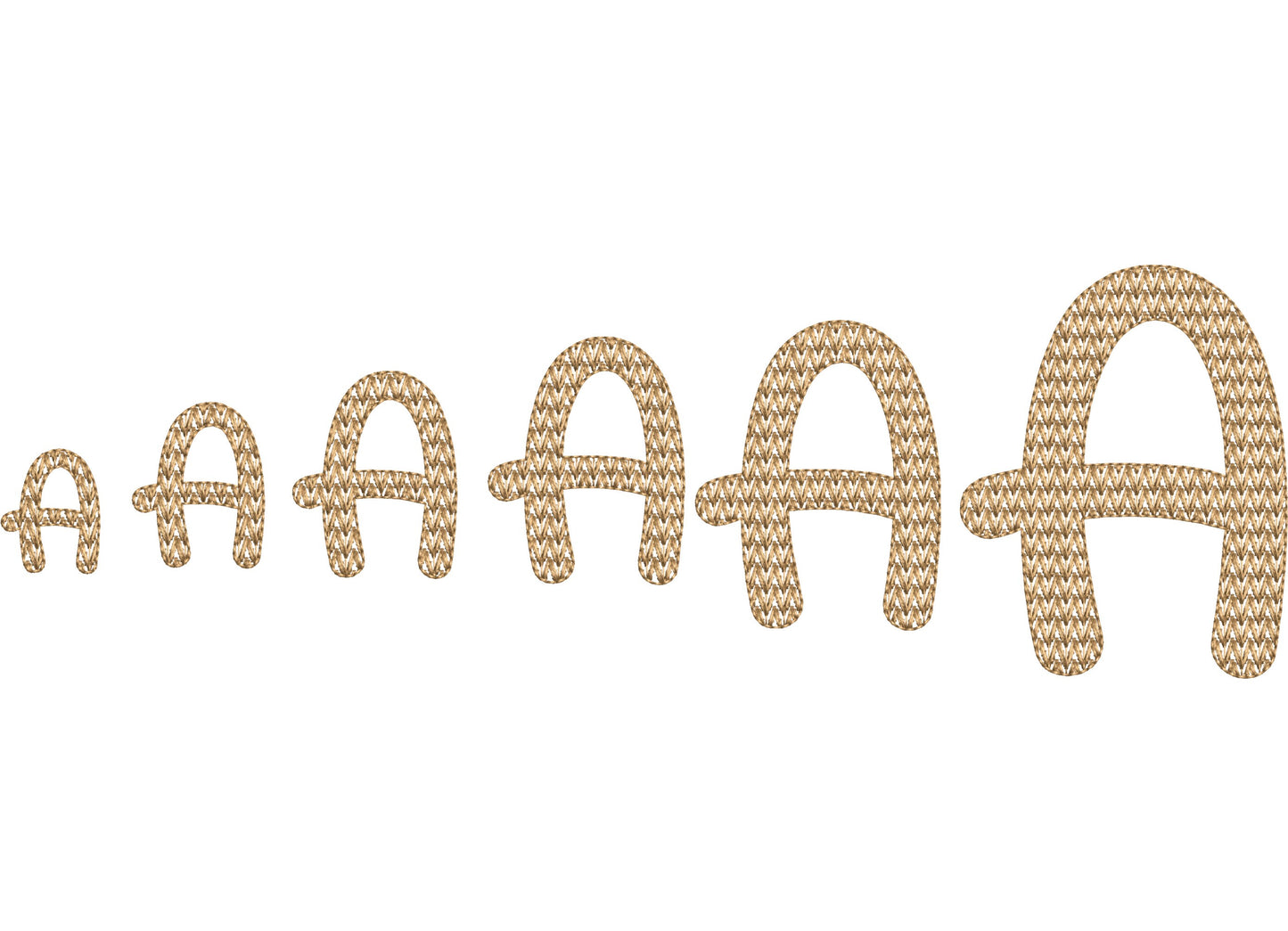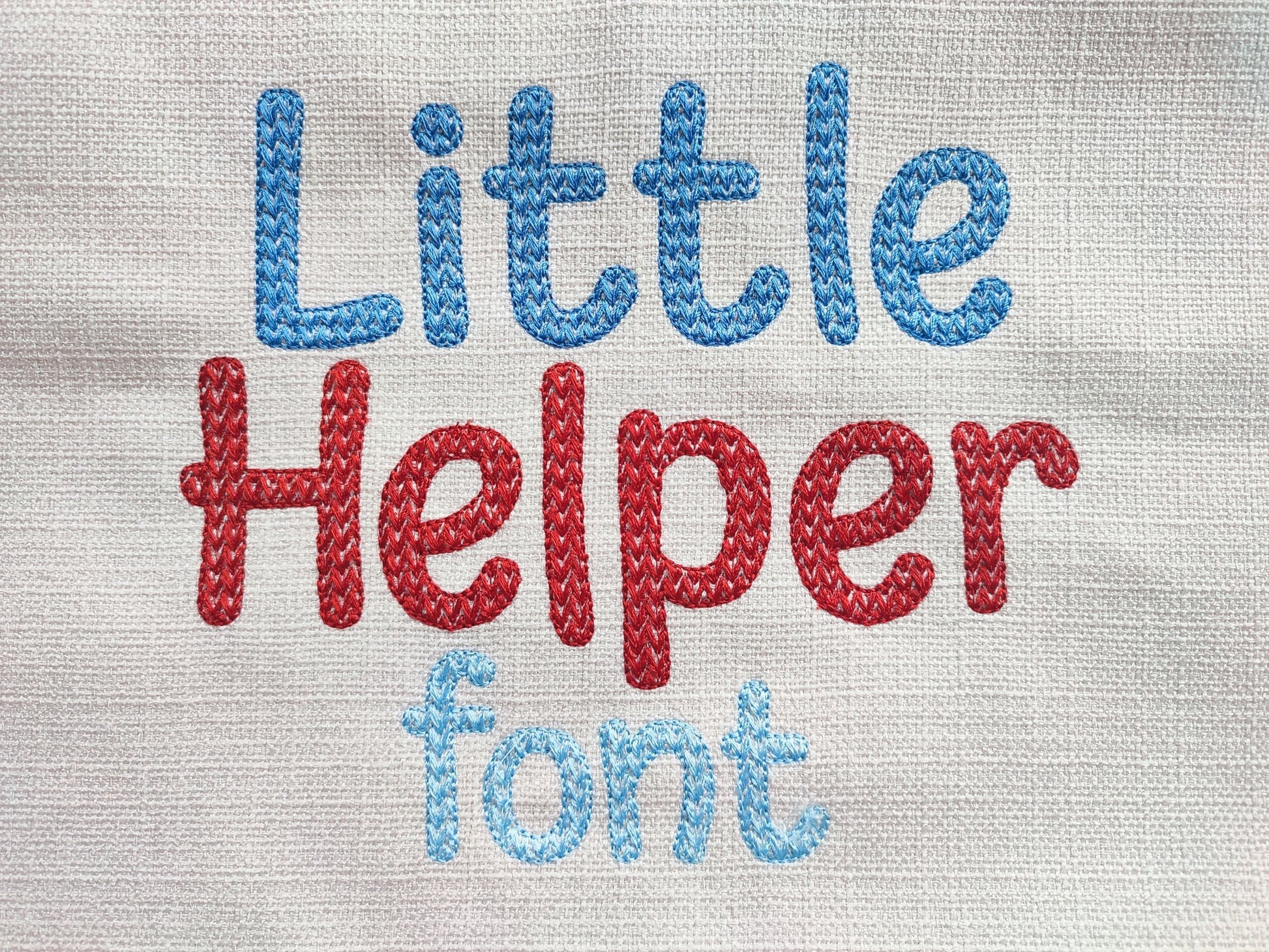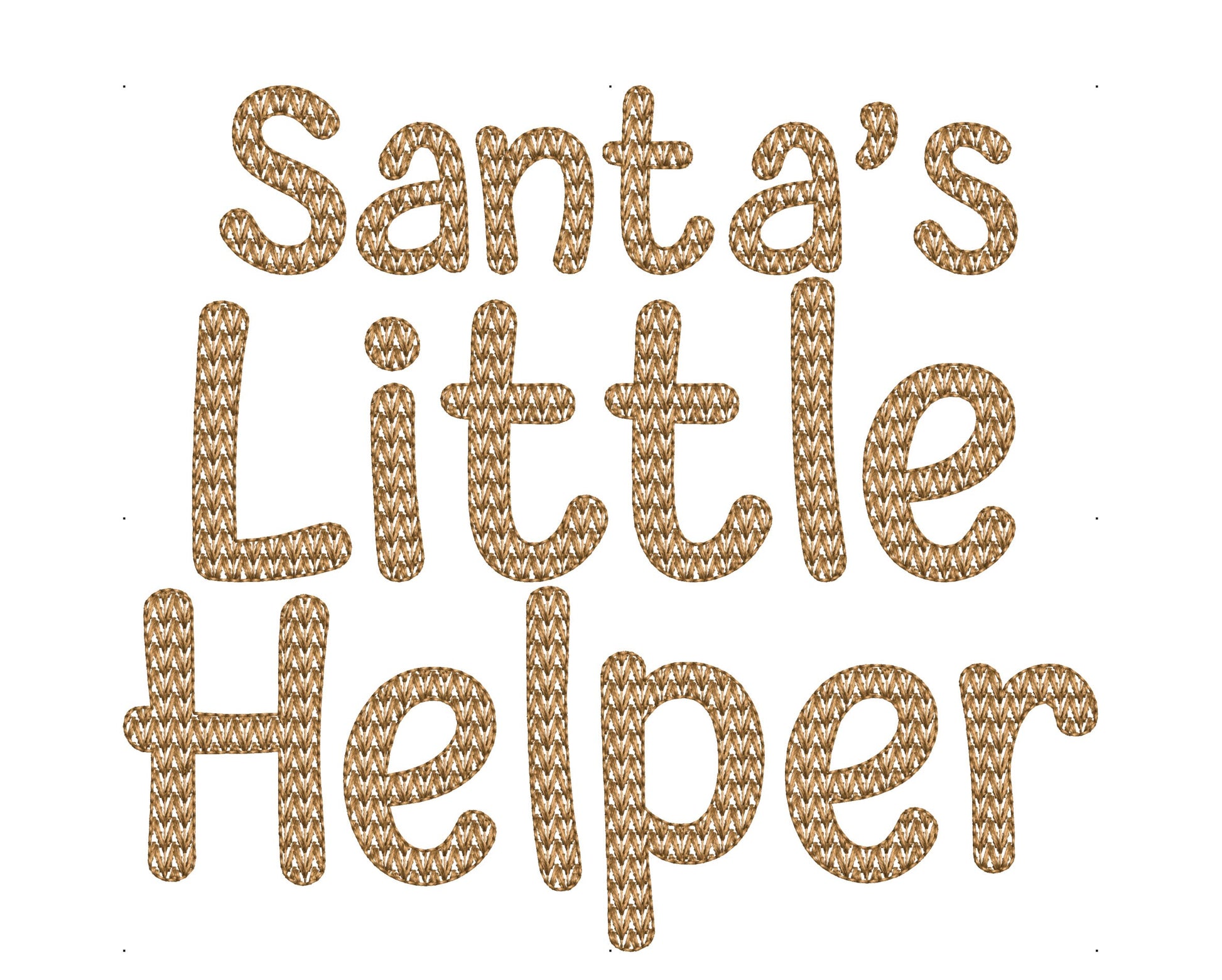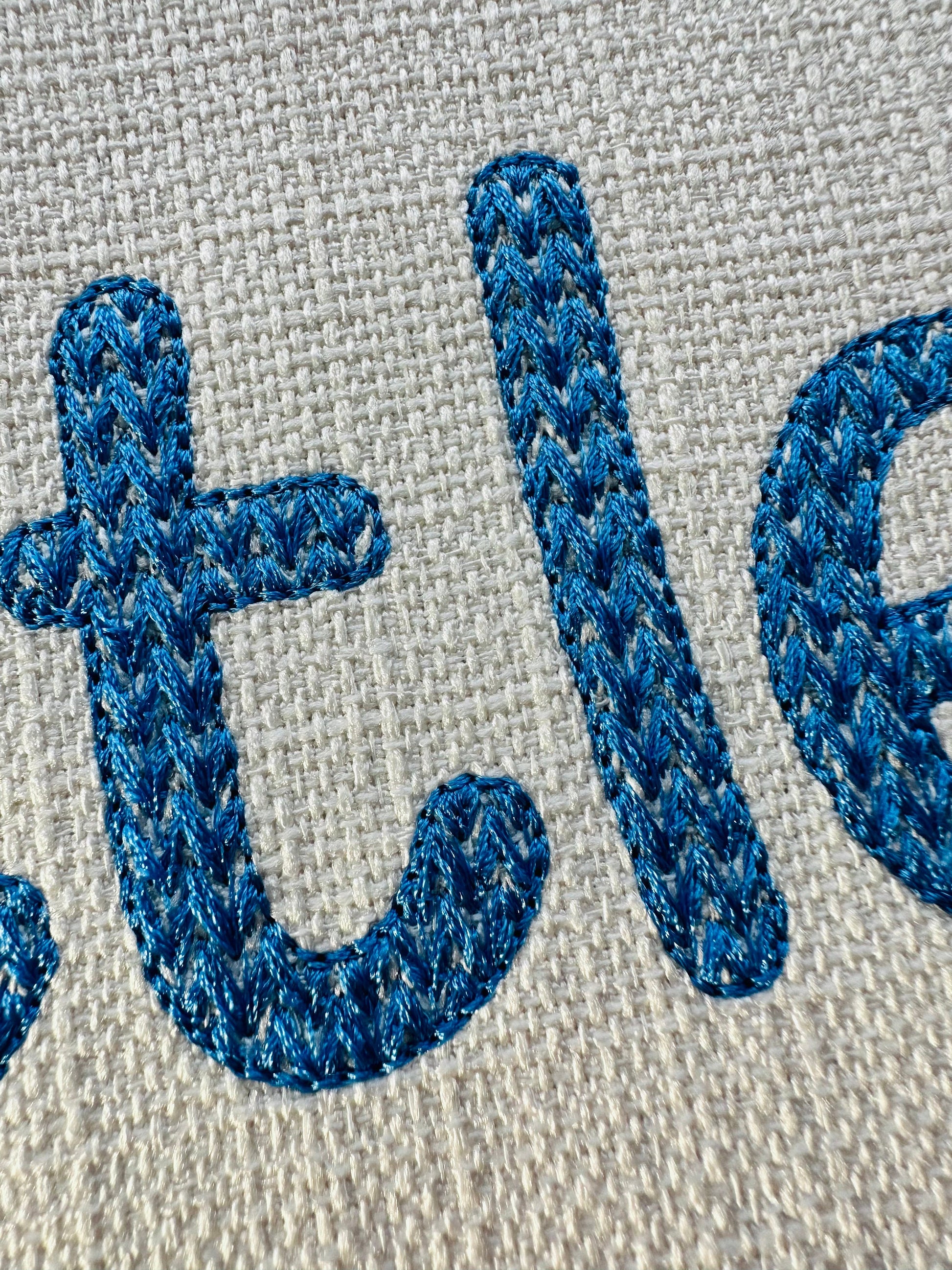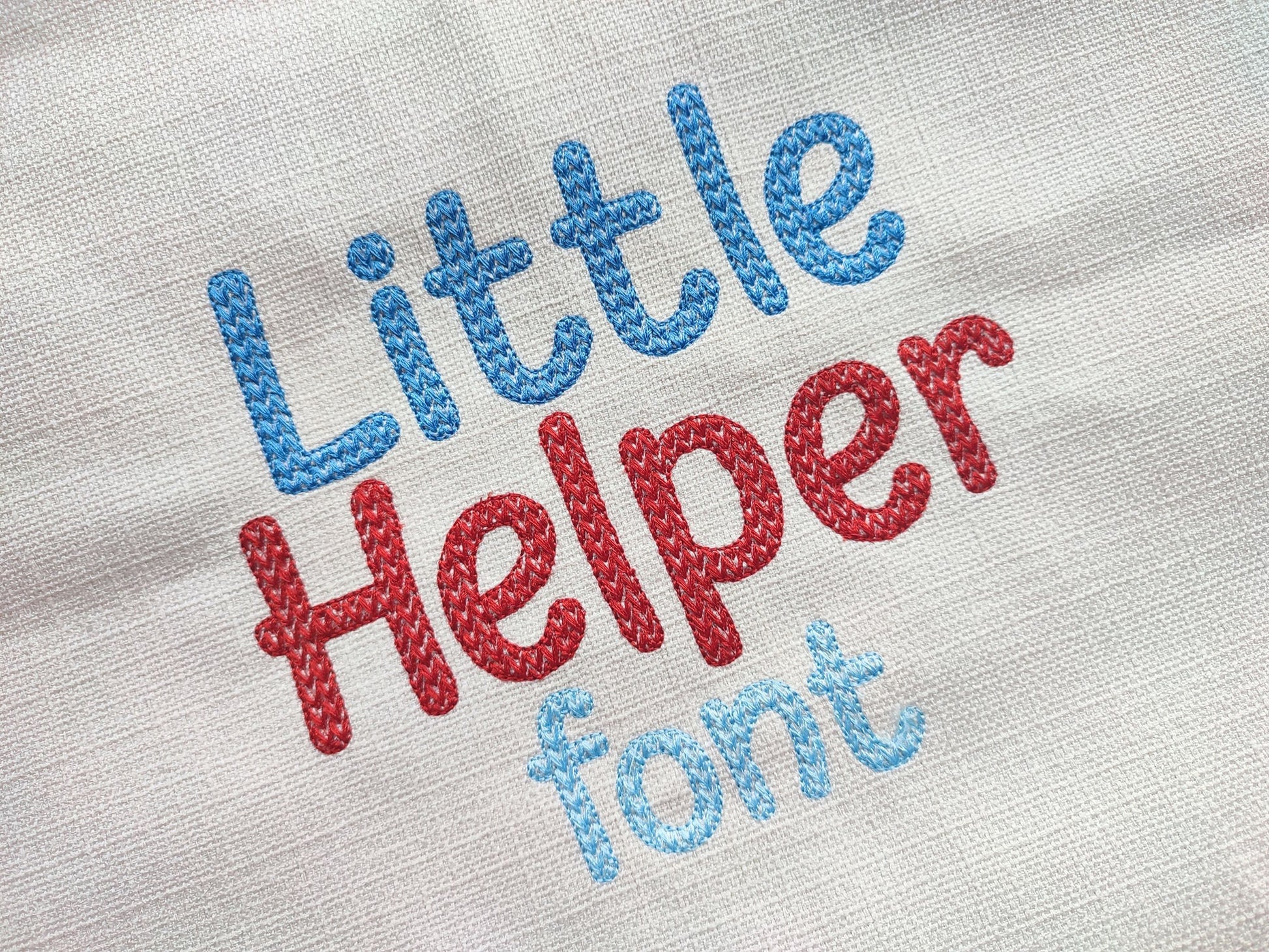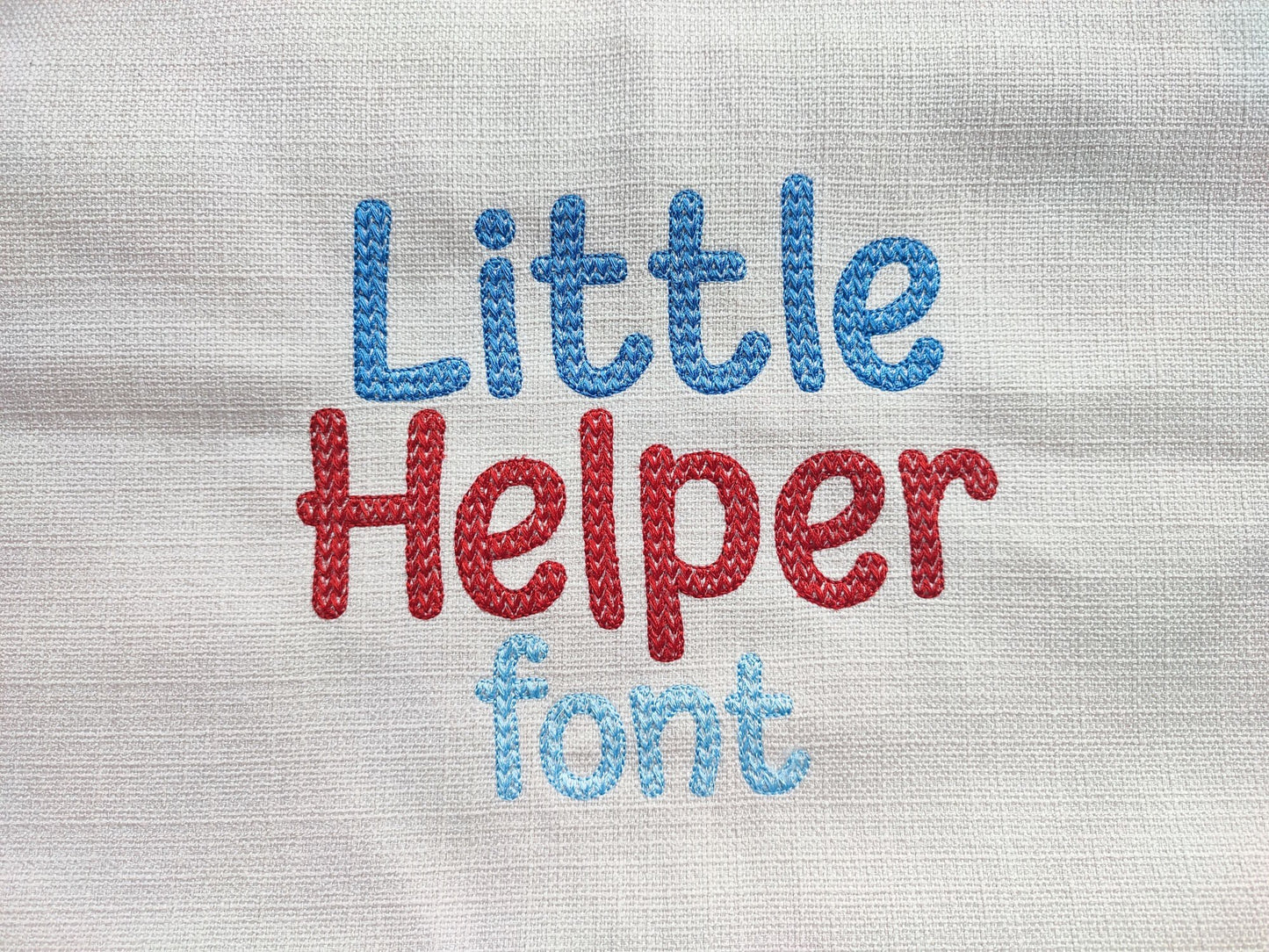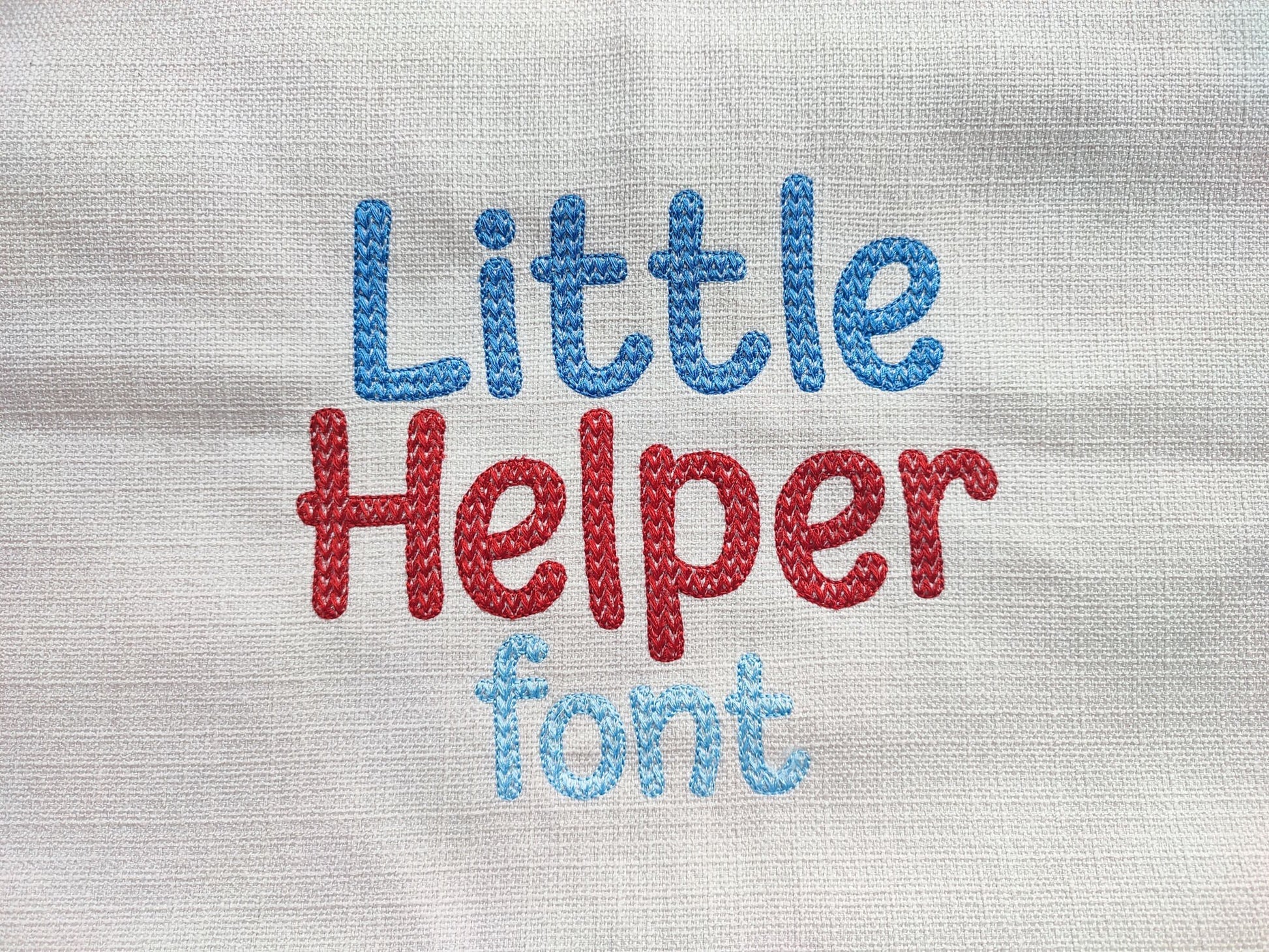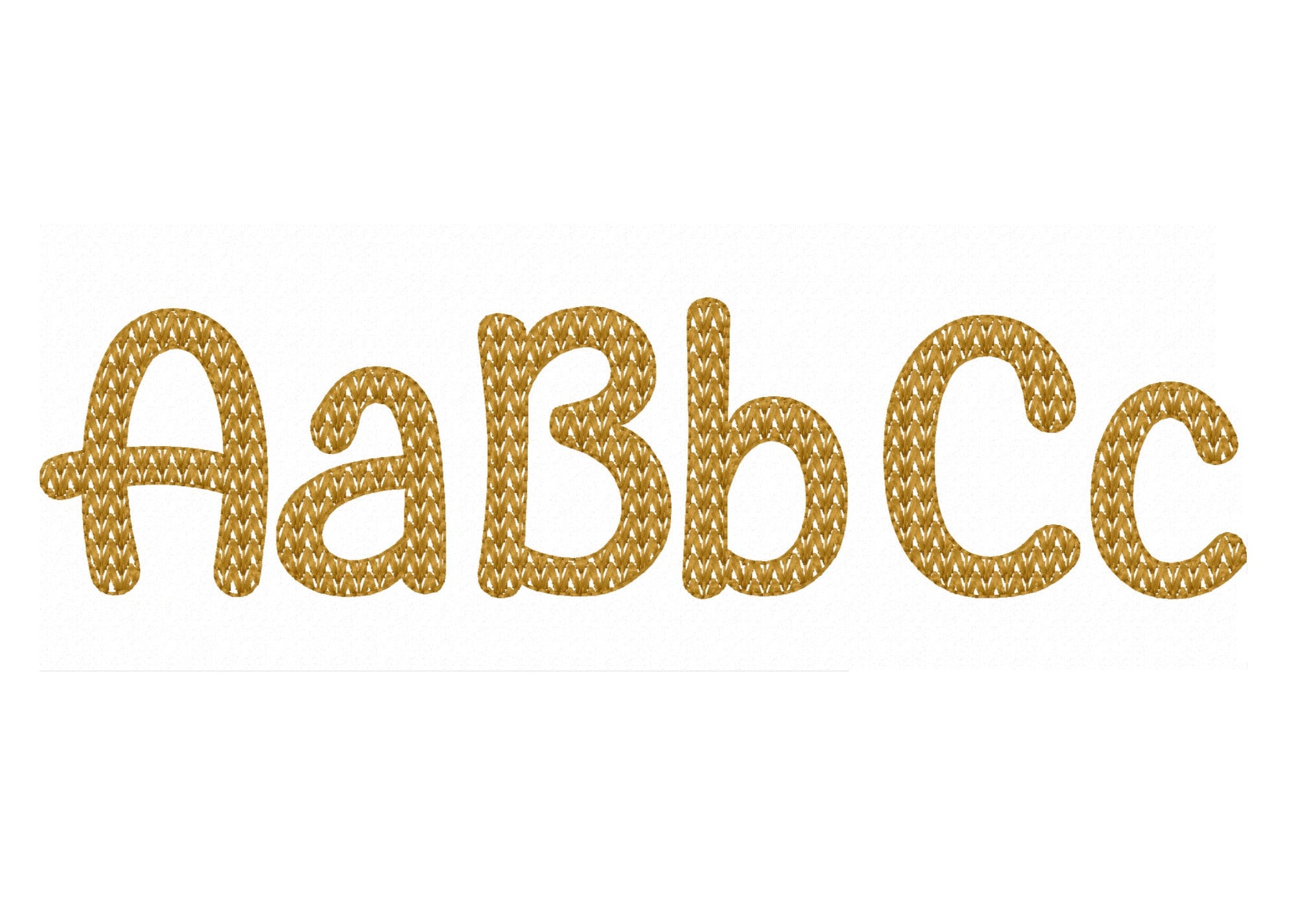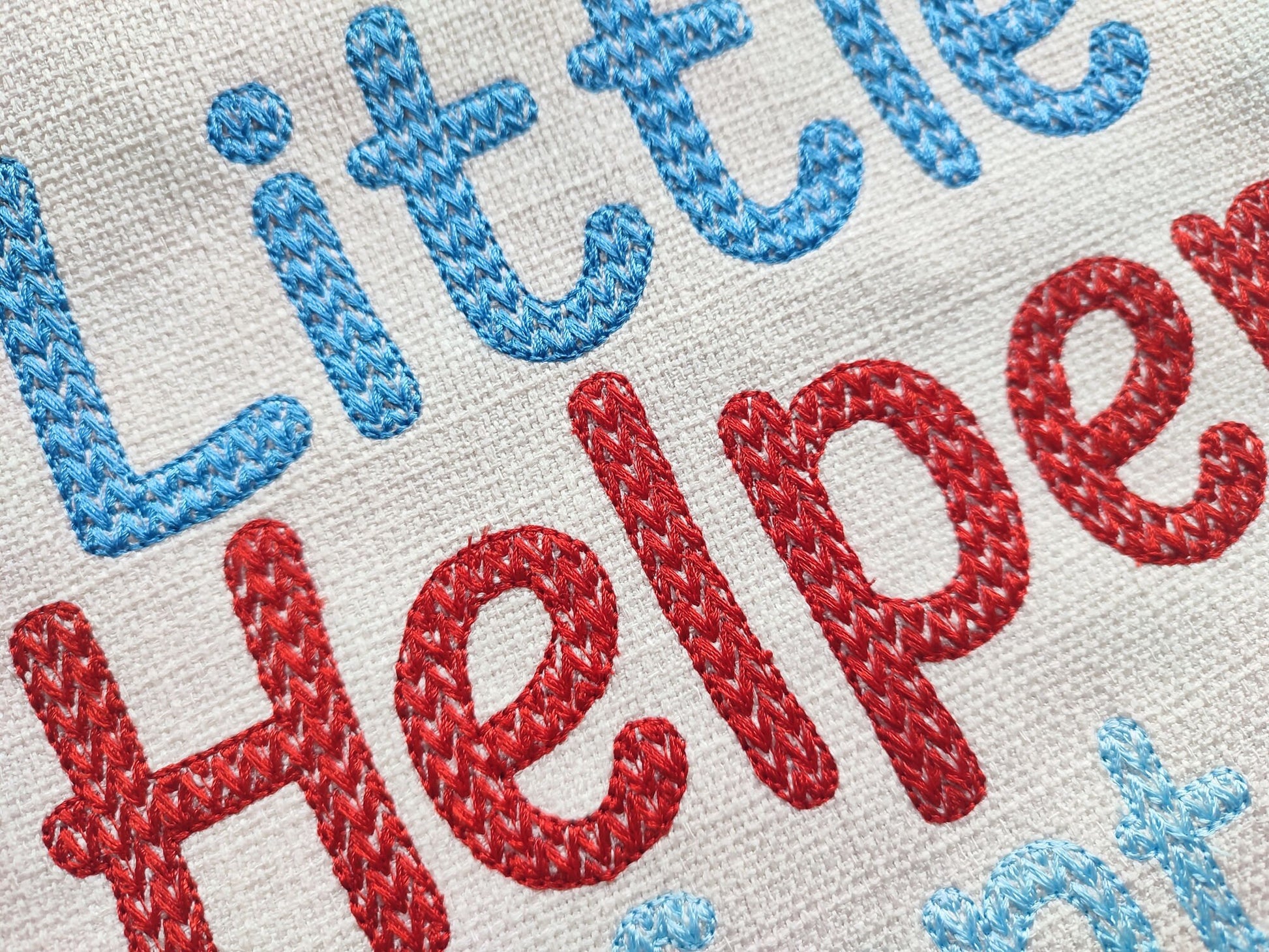
Or click to open the linkA sweet kids' font with a knitted texture and an outline. Cozy for sweaters, hats, blankets and winter names.
Uppercase and lowercase letters, numbers 0 to 9 and punctuation. Six sizes: 1, 1.4, 1.7, 2, 2.5 and 3.4 inches. The knit texture is part of the embroidery.